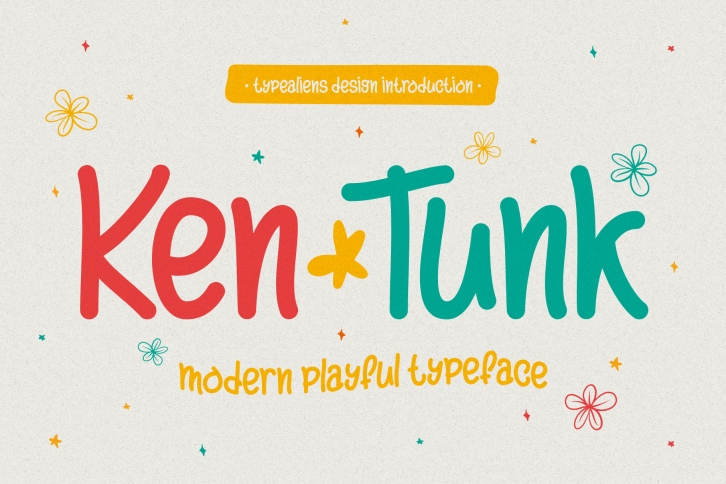
Ken Tunk is a relaxed yet playful display font. Whether you are using it for cartoon-related designs, children's games, quotes, titles, brand names, book covers, posters, or just any creation that requires a touch of joy, this font is a great choice.